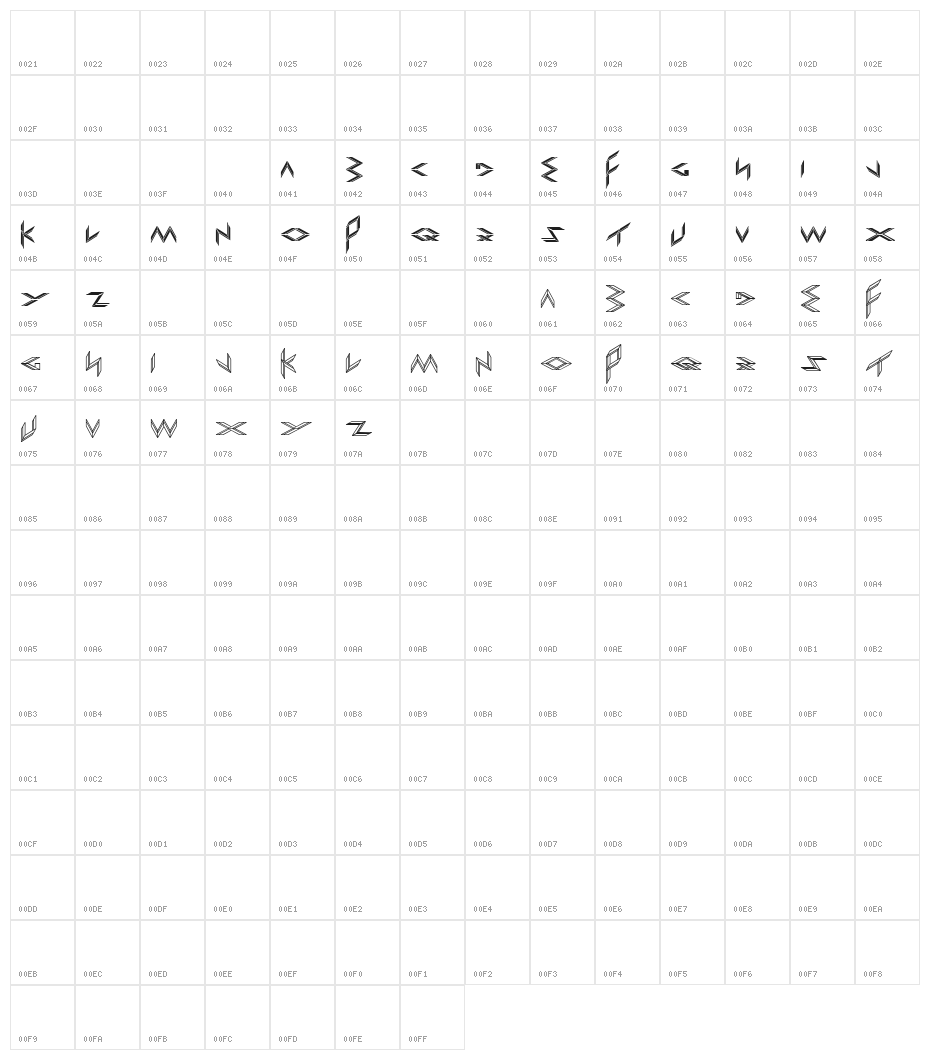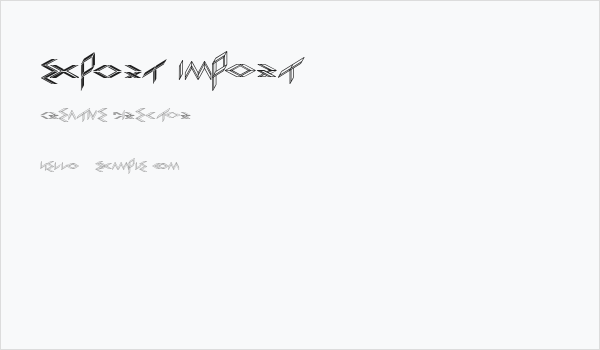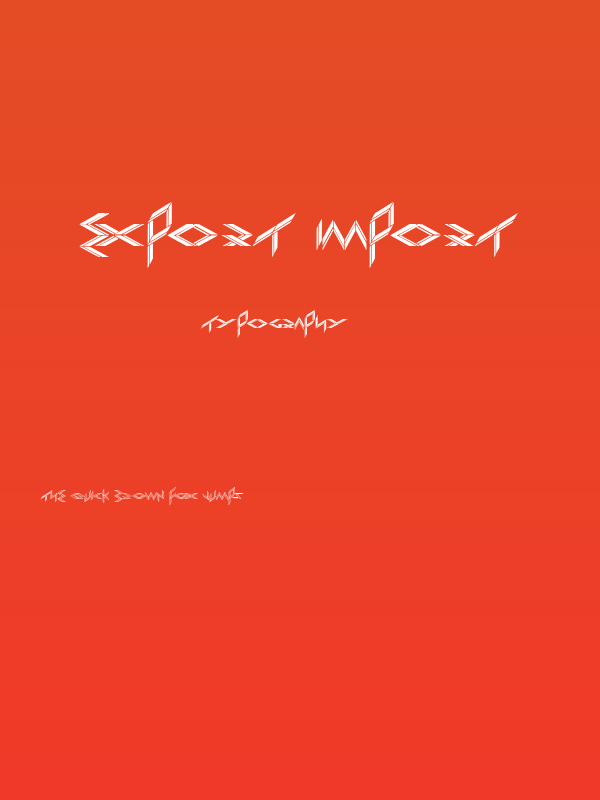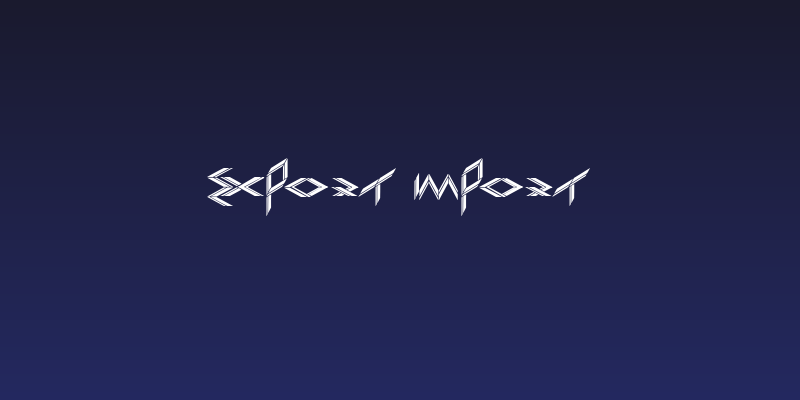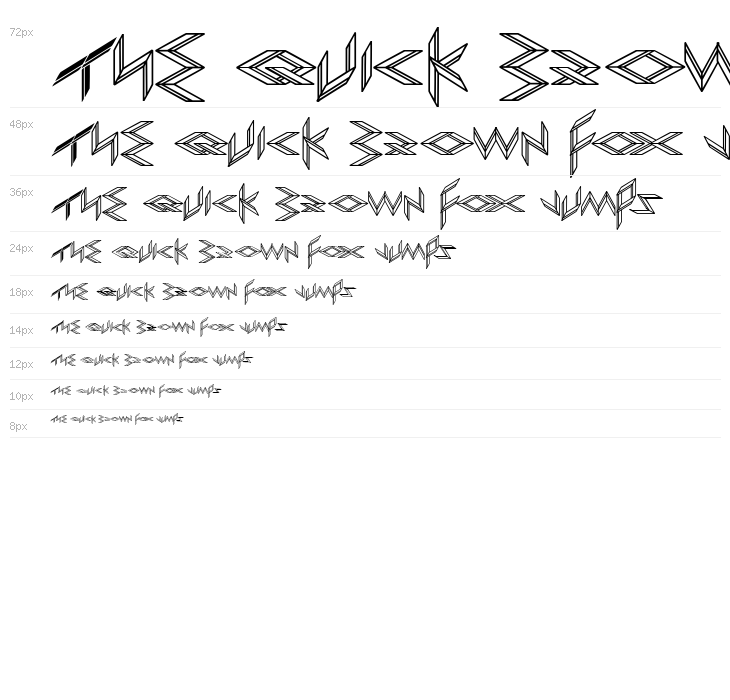
EXPORT import Font
EXPORT import Description
This font features a highly decorative and angular design, characterized by sharp, geometric lines and intricate patterns within each character. The letters are constructed with bold, intersecting strokes that create a sense of movement and complexity. The style is reminiscent of futuristic or tribal aesthetics, with a strong emphasis on symmetry and sharp edges. The uppercase and lowercase letters maintain a consistent visual theme, while the numbers and special characters integrate seamlessly with the overall design. This font is visually striking and commands attention, making it ideal for standout applications.
| Overall Style | Futuristic, Decorative |
| Proposed Projects | Ideal for use in sci-fi themed projects, video game titles, posters, and branding that requires a bold, futuristic look. |